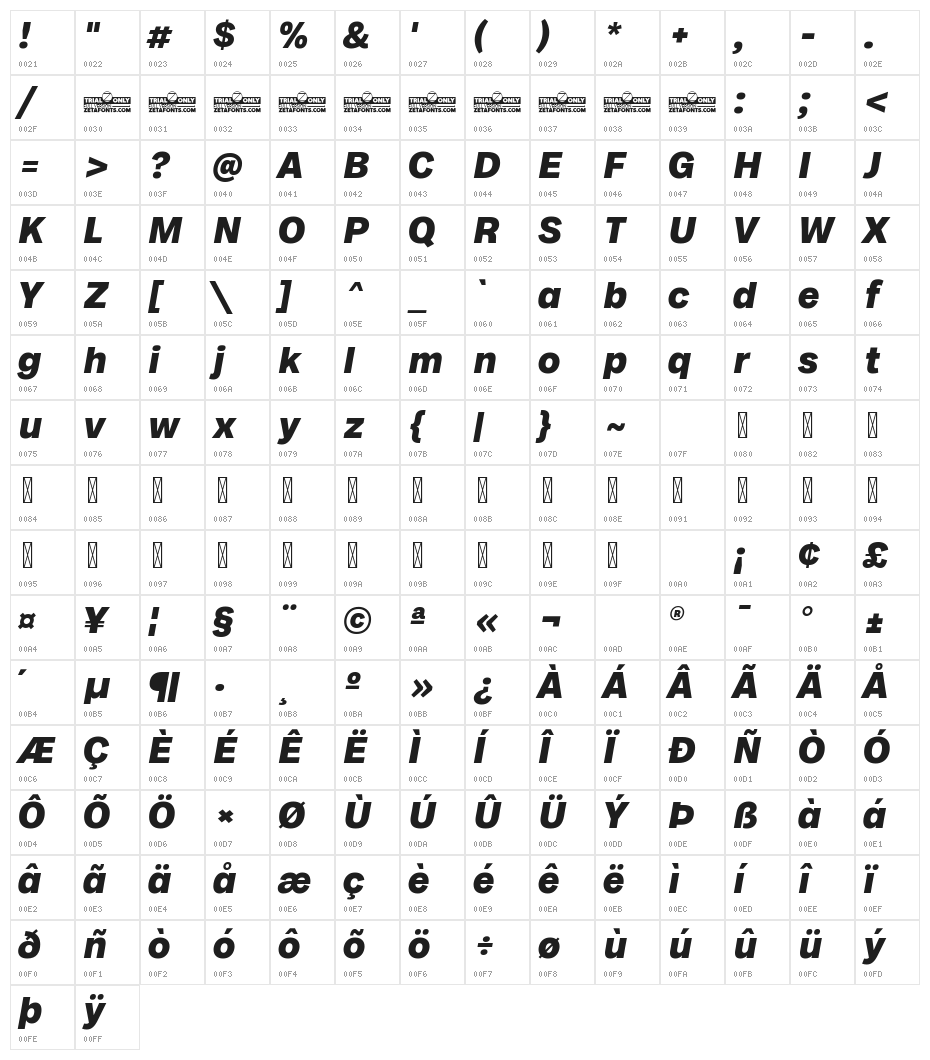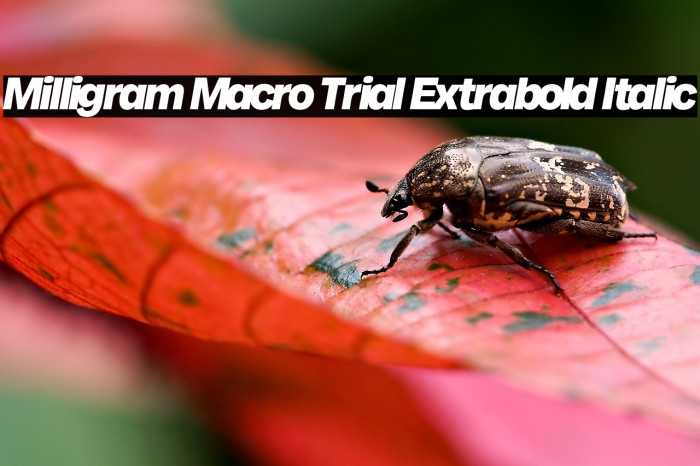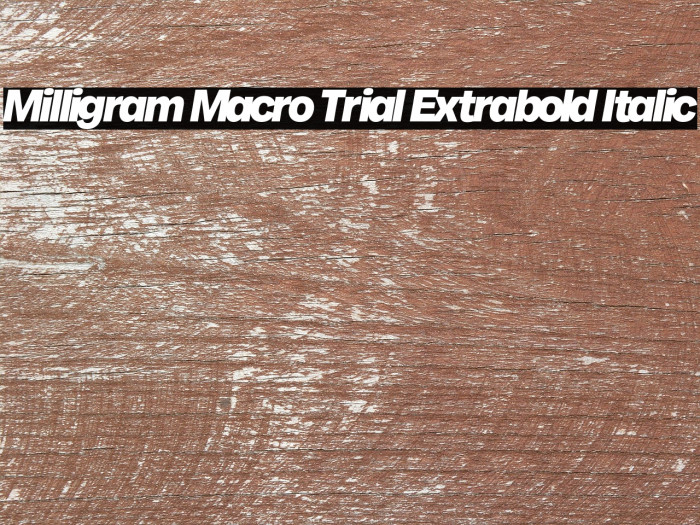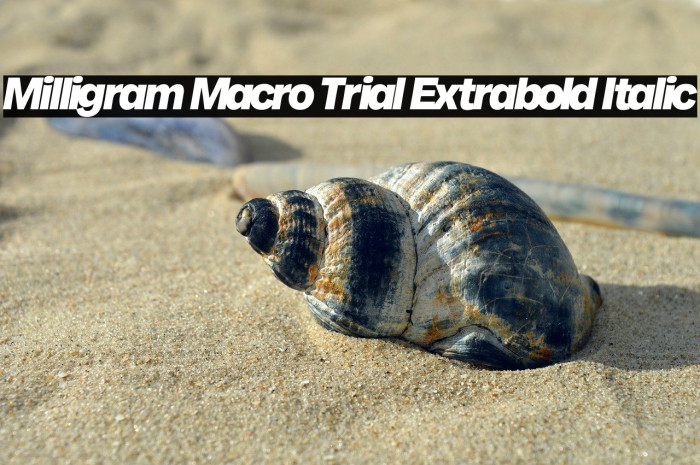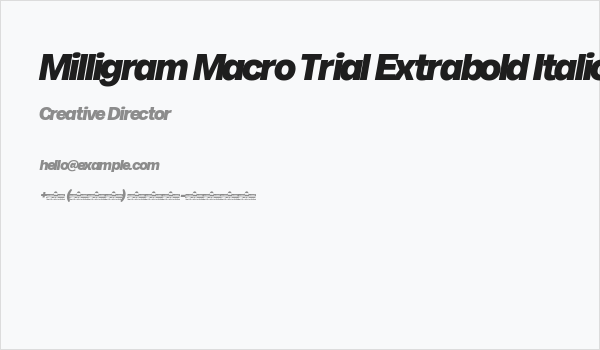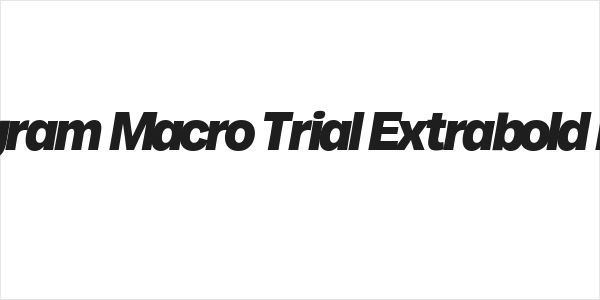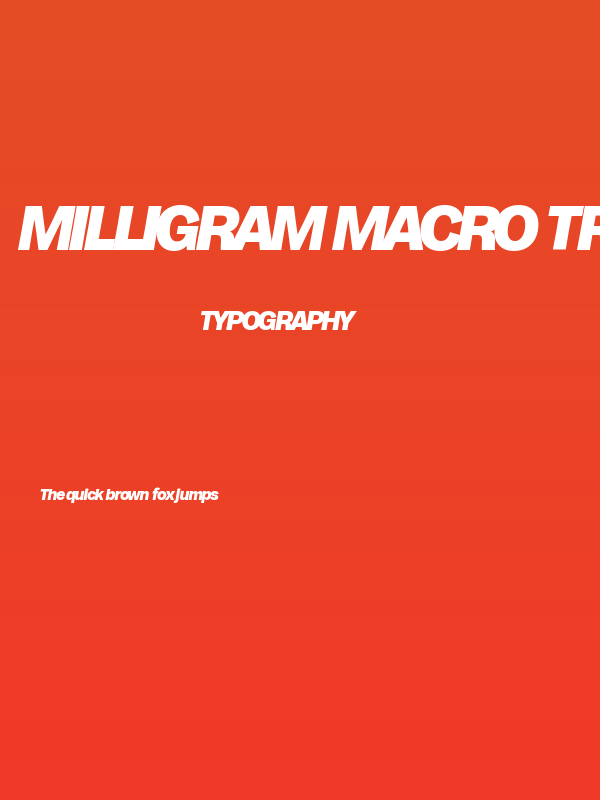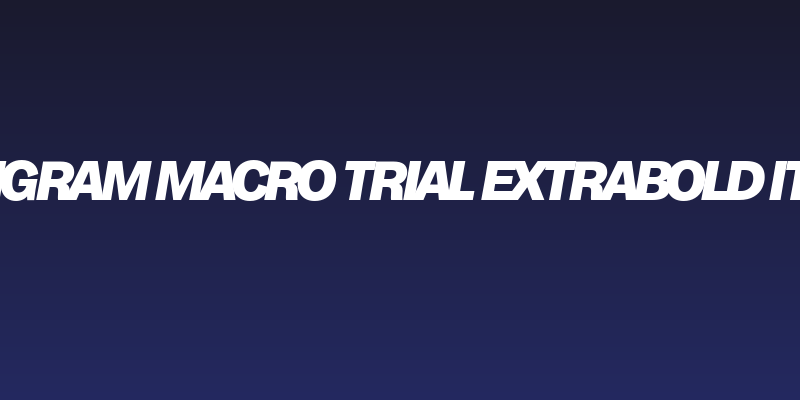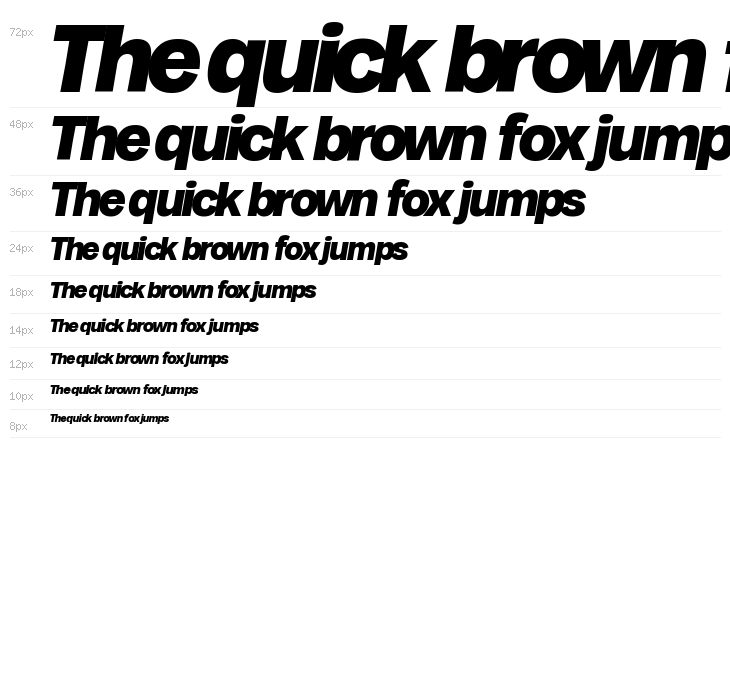
Milligram Macro Trial Extrabold Italic Font
Milligram Macro Trial Extrabold Italic Description
This font exhibits a bold and dynamic presence with its extra-bold weight and italic style. The characters are designed with a modern aesthetic, featuring clean lines and a slight slant that adds a sense of motion and energy. The uppercase and lowercase letters maintain a consistent width, contributing to a cohesive and balanced appearance. The numerals and special characters are crafted to match the boldness and style of the alphabet, ensuring uniformity across all text. This font is highly legible and impactful, making it suitable for attention-grabbing designs.